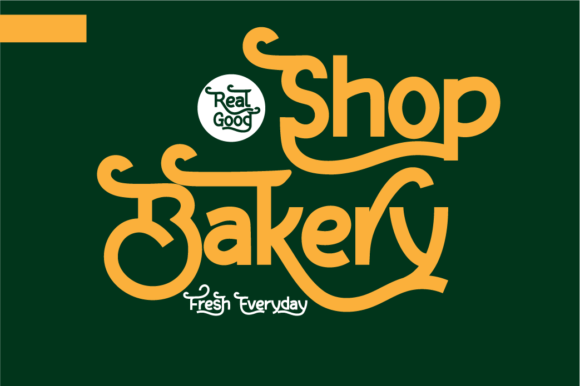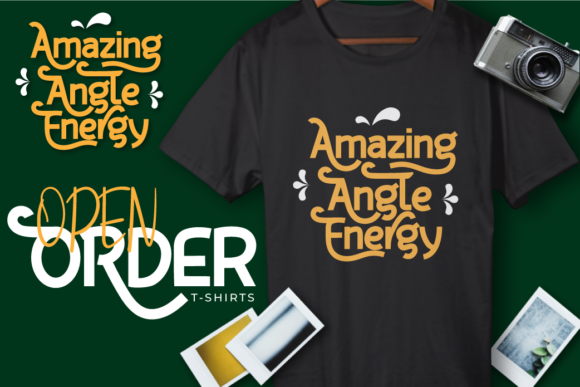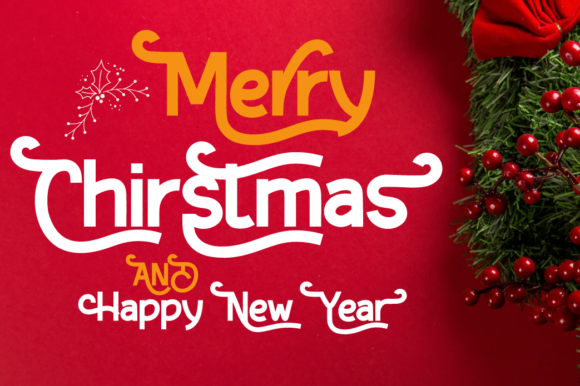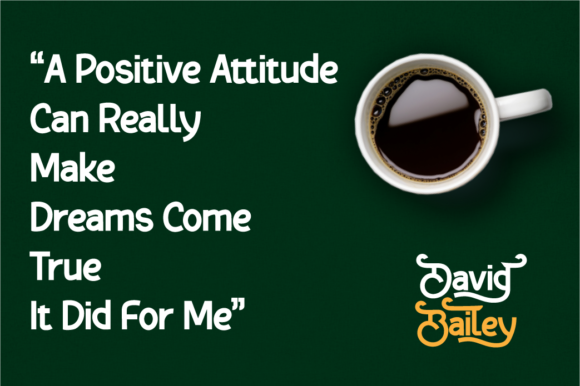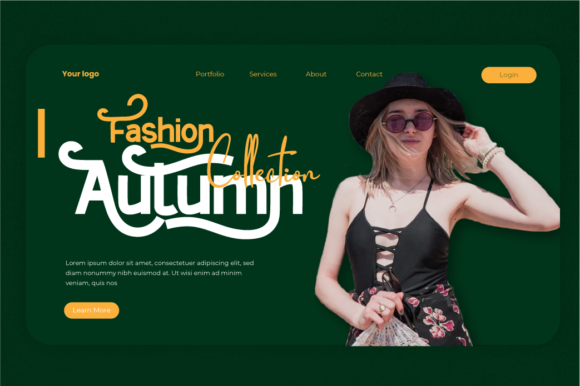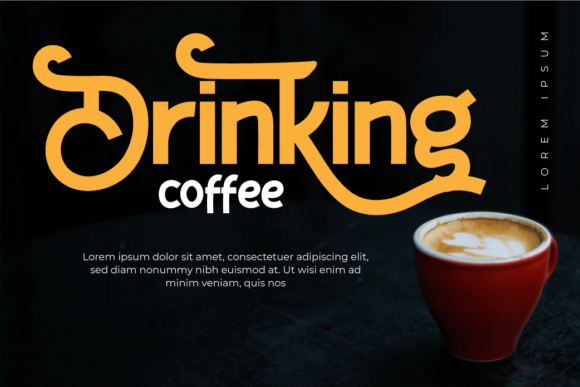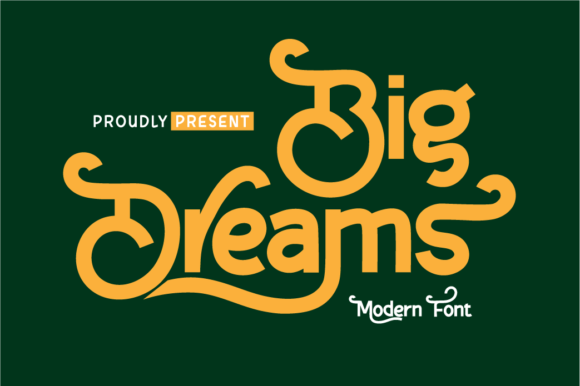
The Big Dreams Font: A Game-Changer for Designers and Crafters
Have you ever been in the middle of a design project, and suddenly, you’re stuck on finding the perfect font? I recall a particularly frustrating experience while working on a client’s branding project. The client wanted a font that was elegant, unique, and versatile enough to use across various platforms. After hours of scouring the internet, I stumbled upon the Big Dreams font. It was love at first sight! 💕
Big Dreams is an elegant and unique sans serif font that has become a staple in my design toolkit. Its original look appeals to a wide range of crafty ideas, from letterheads and titles to stationery. In this article, I’ll share my honest review of the Big Dreams font, provide a practical guide on how to use it, and explore similar fonts and alternatives.
Honest Review: What I Love and Some Quirks
- ✅ Elegant and unique sans serif design
- ✅ Highly versatile and adaptable to various design projects
- ✅ Easy to read and understand, even at small font sizes
- ✅ Beautiful OpenType features and glyphs
Some Quirks and Limitations 🤔
- ⚠️ Limited availability of stylistic alternates
- ⚠️ May not be suitable for very large or very small font sizes
If you like the Big Dreams font, you may also enjoy the following similar fonts and alternatives:
- Montserrat: A modern sans serif font with a geometric feel, perfect for minimalist designs.
- Lato: A clean and elegant sans serif font with a warm feel, great for body text and titles.
- Raleway: A sophisticated sans serif font with a classic feel, ideal for headings and titles.
- Avenir: A geometric sans serif font with a futuristic feel, suitable for modern and edgy designs.
The Designer Inspiration Behind Big Dreams
The Big Dreams font was designed with the intention of creating a unique and elegant sans serif font that would appeal to designers and crafters. The designer aimed to create a font that would be highly versatile and adaptable to various design projects, from letterheads and titles to stationery.
Q: What is the Big Dreams font?
A: The Big Dreams font is an elegant and unique sans serif font designed for a wide range of crafty ideas, from letterheads and titles to stationery.
Q: Is the Big Dreams font suitable for body text?
A: Yes, the Big Dreams font is easy to read and understand, even at small font sizes, making it suitable for body text.
Q: What are some similar fonts to Big Dreams?
A: Some similar fonts to Big Dreams include Montserrat, Lato, Raleway, and Avenir.